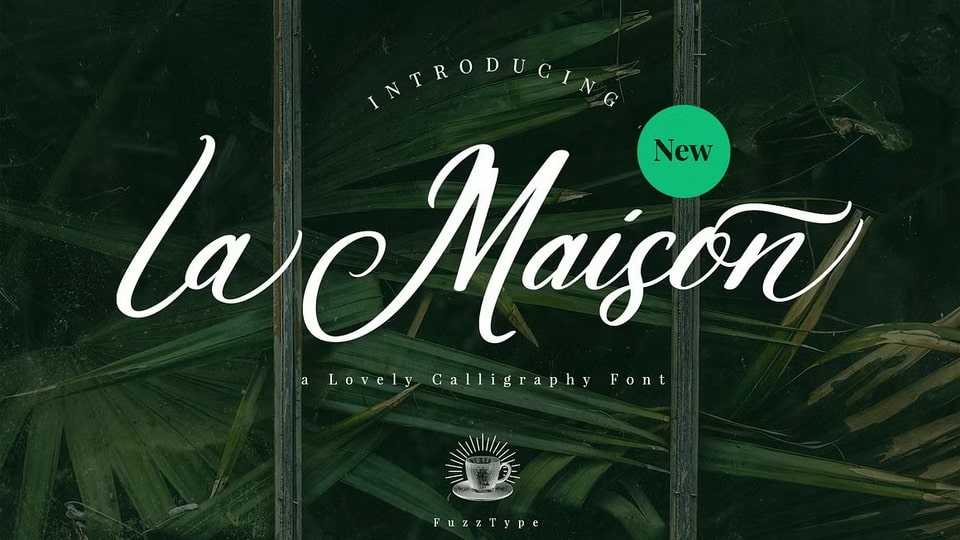
Download La Maison font, a lovely calligraphy script typeface, it shows elegant, feminine, crafty things. You can use it on any kind of media such as flyer, wedding invitation, label, packaging, logo, book, blogging etc.
Designer: Fuzztype